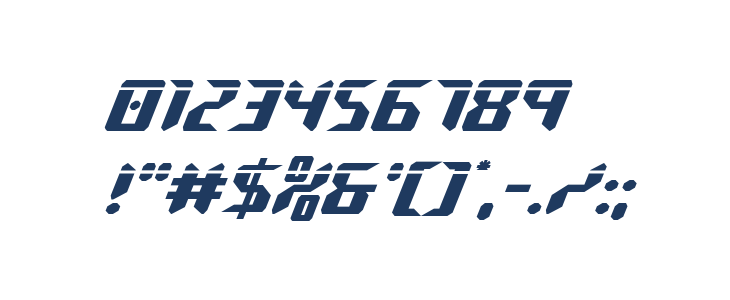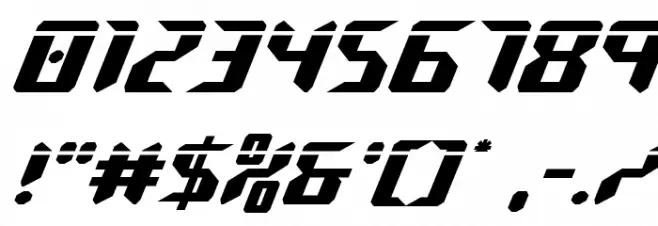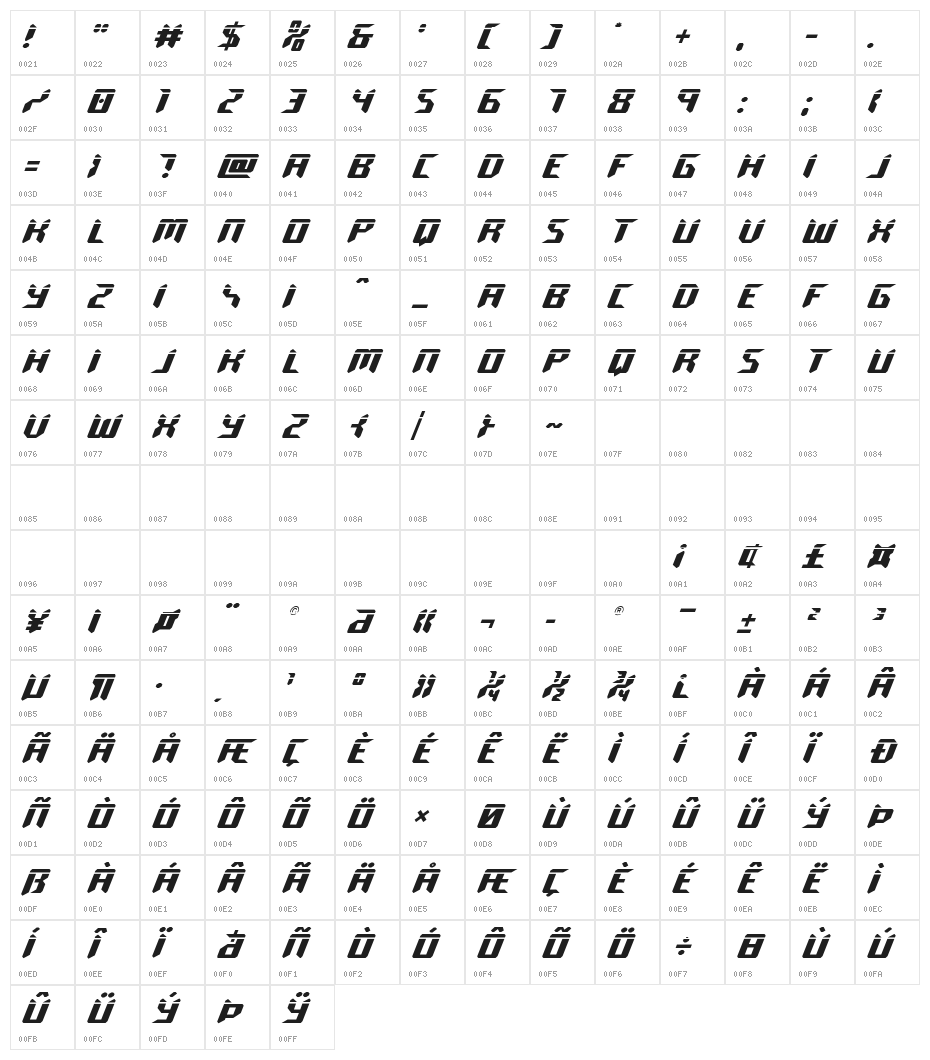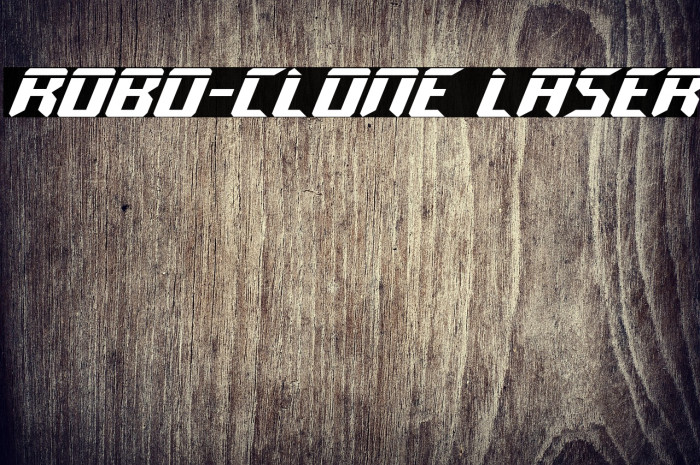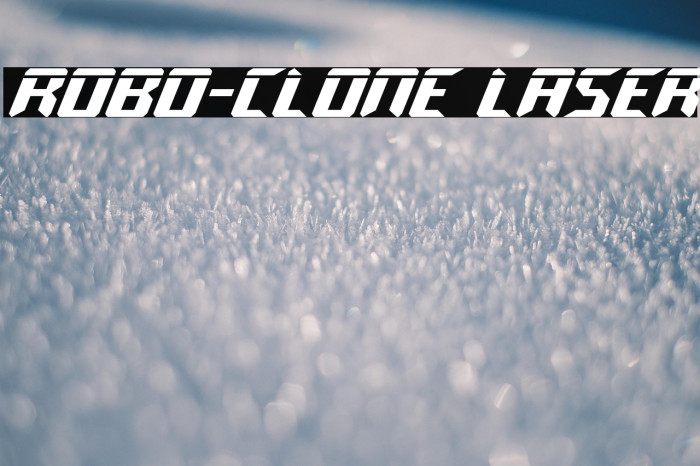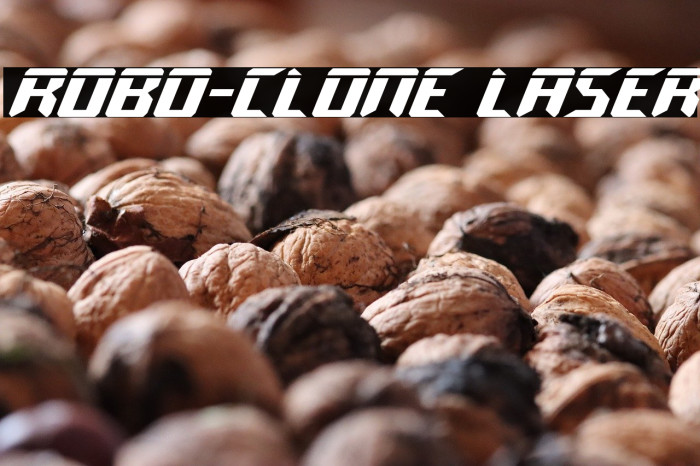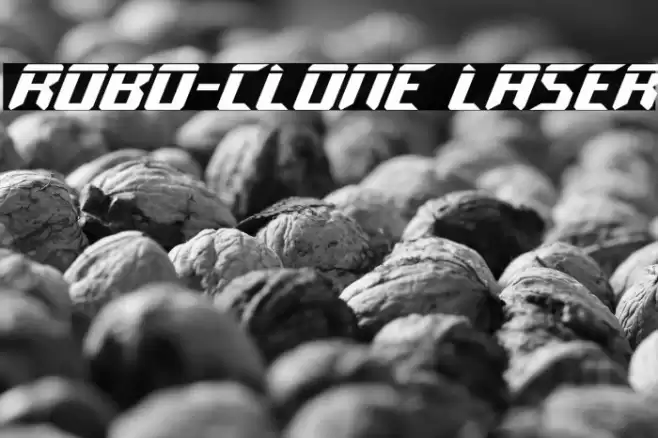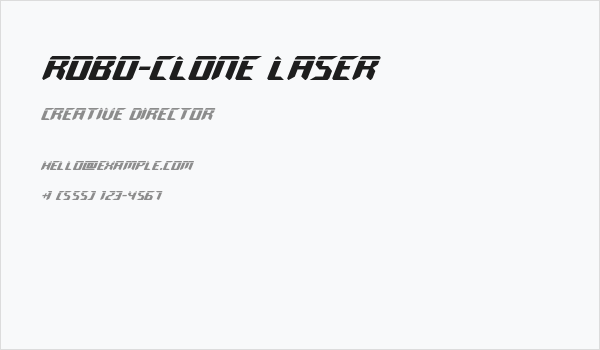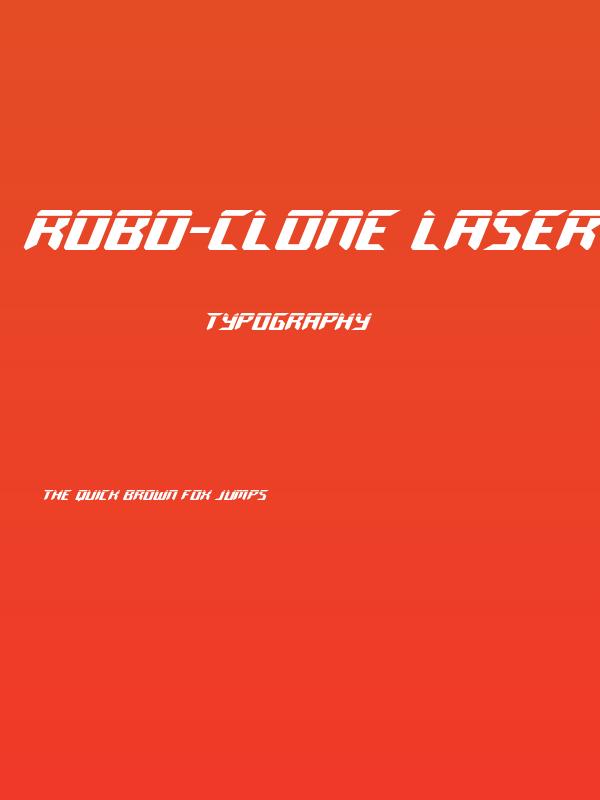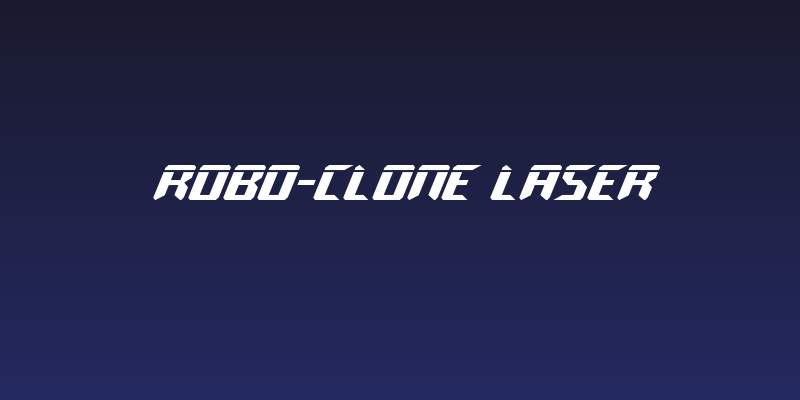
This font features a futuristic and angular design, characterized by sharp edges and a dynamic slant that gives it a sense of motion and energy. The uppercase and lowercase letters maintain a consistent geometric style, with bold strokes and a slightly condensed form. The numerals and special characters follow the same aesthetic, ensuring uniformity across all glyphs. The font's design is reminiscent of sci-fi themes, making it ideal for projects that require a modern and technological feel. Its bold presence and unique style make it stand out, while the consistent slant adds a cohesive flow to the text.
| Proposed Projects | Ideal for sci-fi themed projects, tech branding, video game titles, and futuristic posters. |